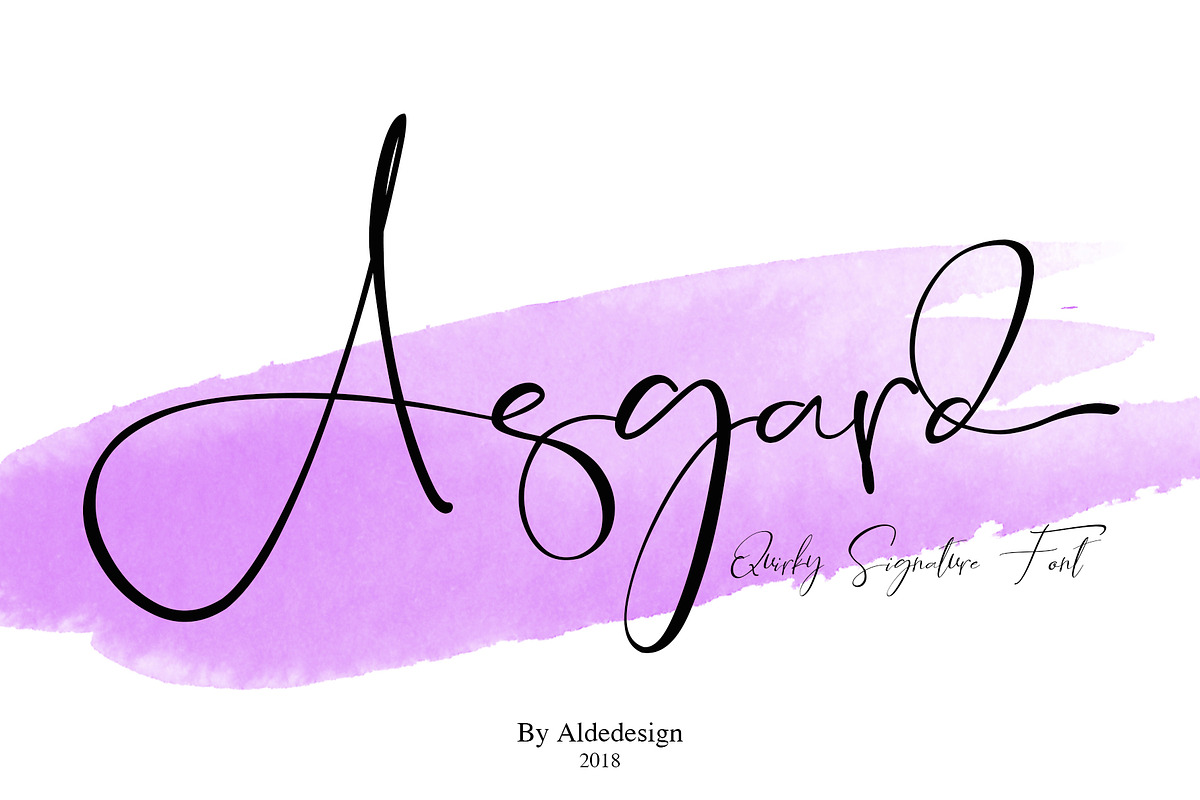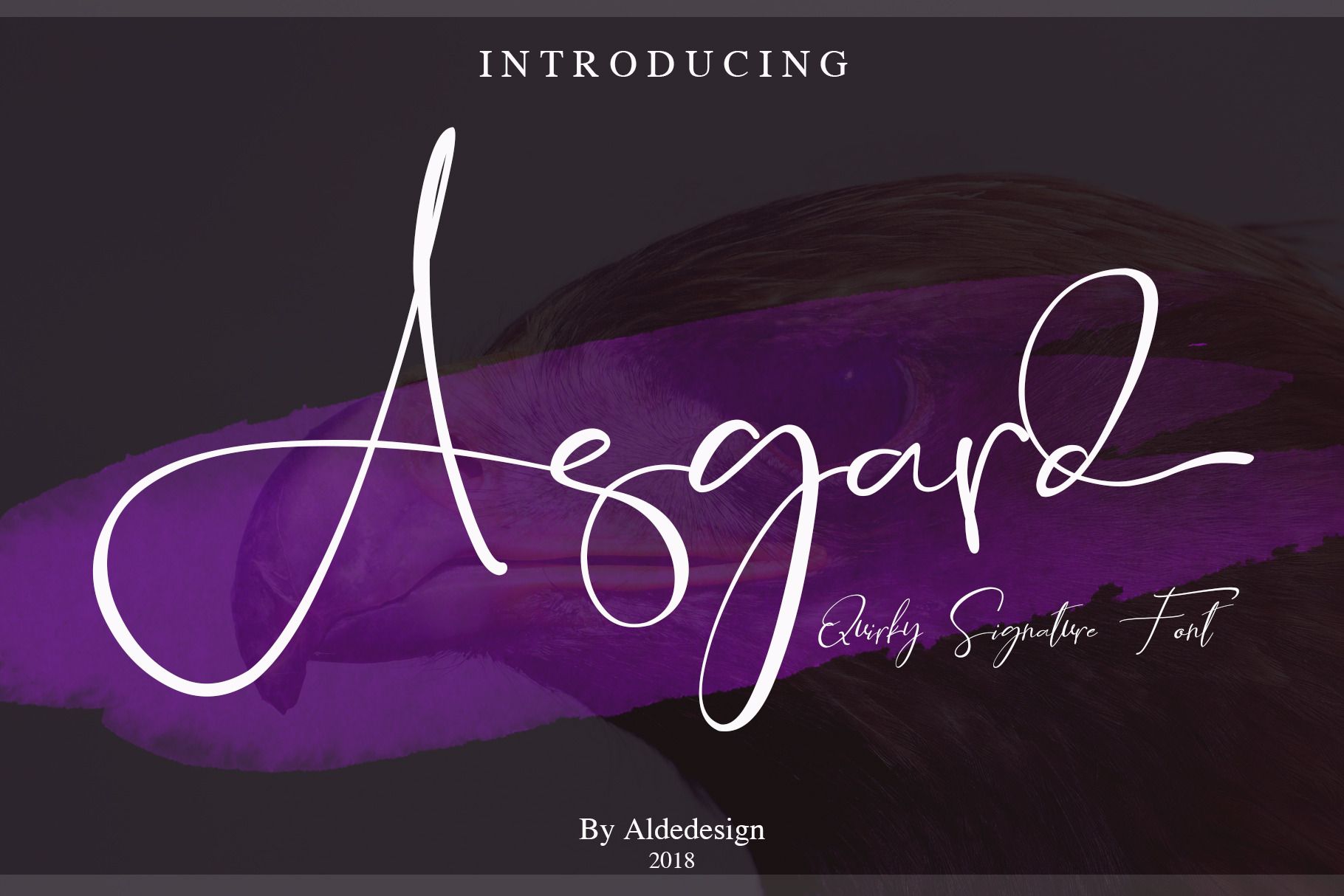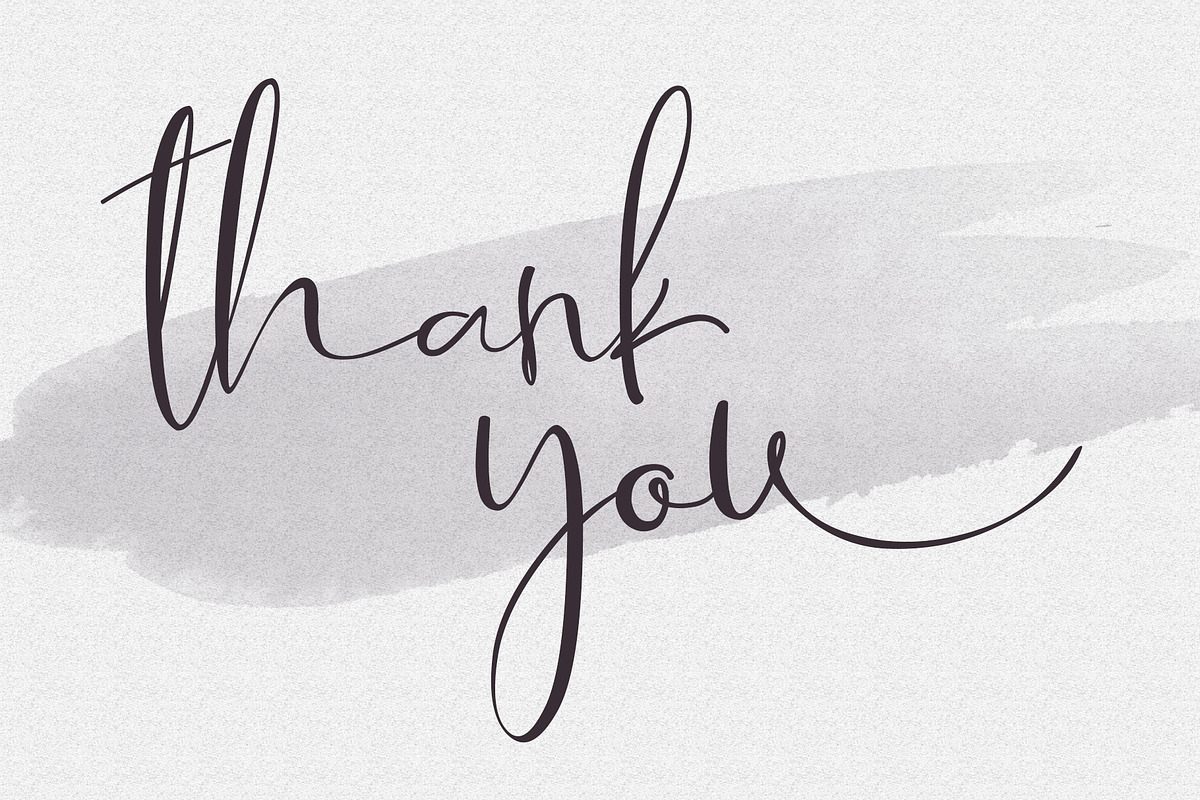
Asgard Signature Font
This is Asgard! Signature font for classy design, branding, headline, photography and etc.
Include Asgard slant version to elevate your design.